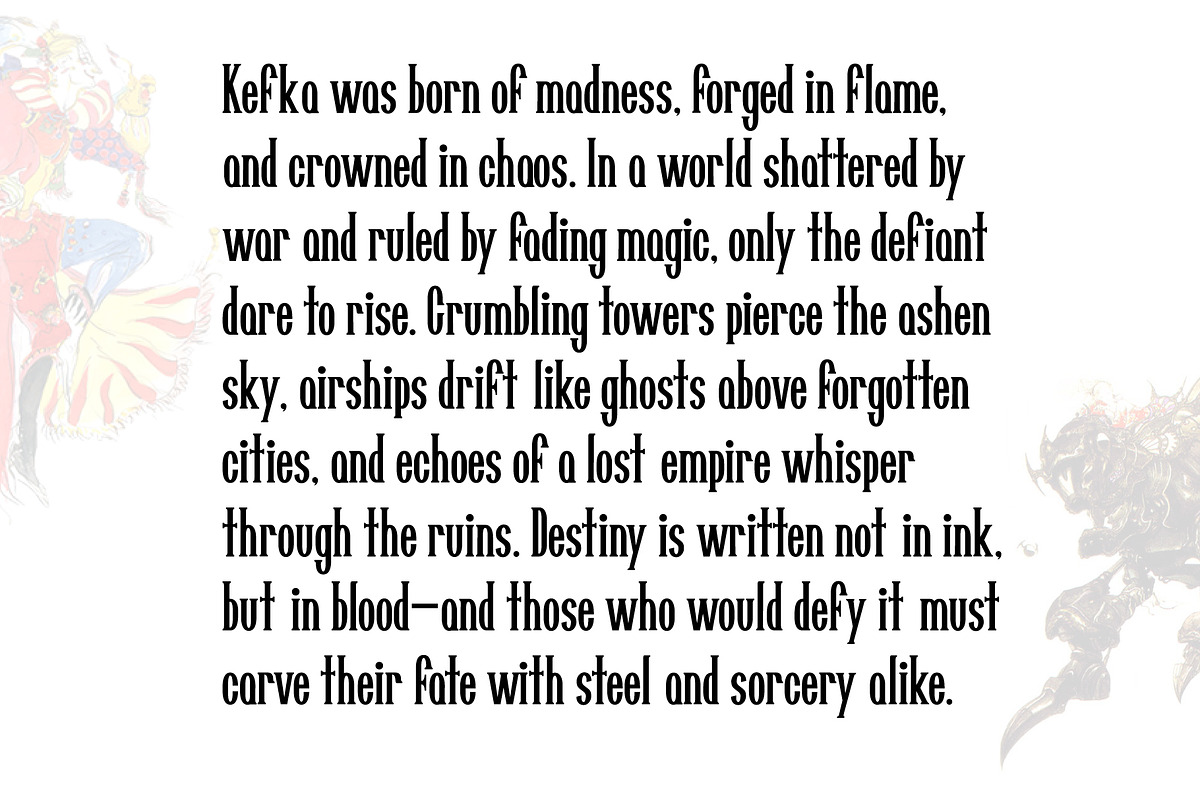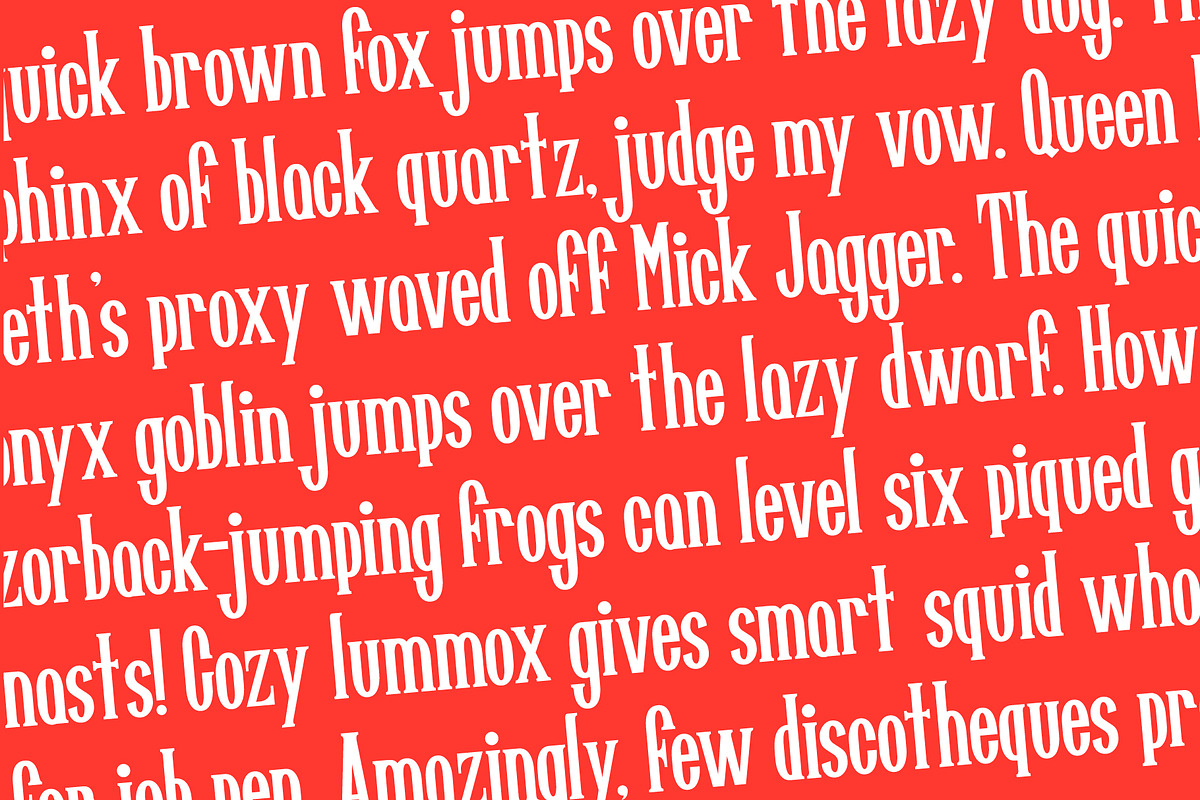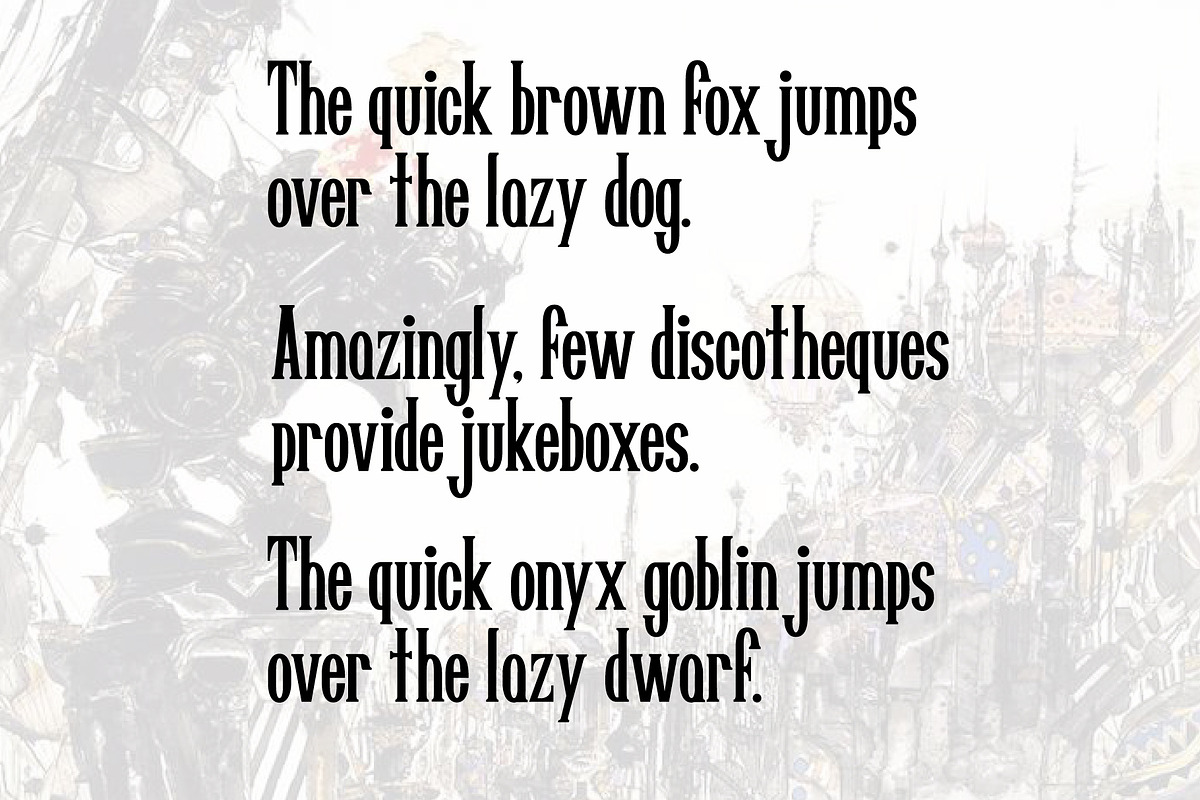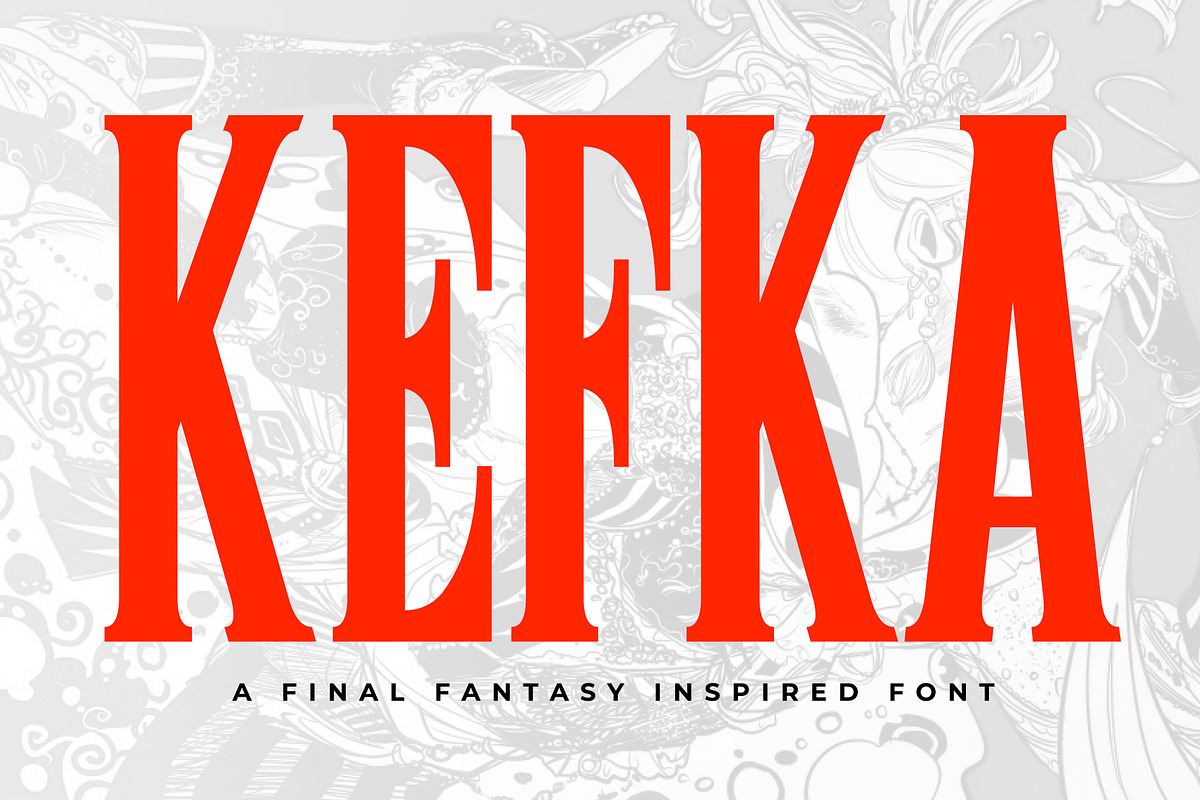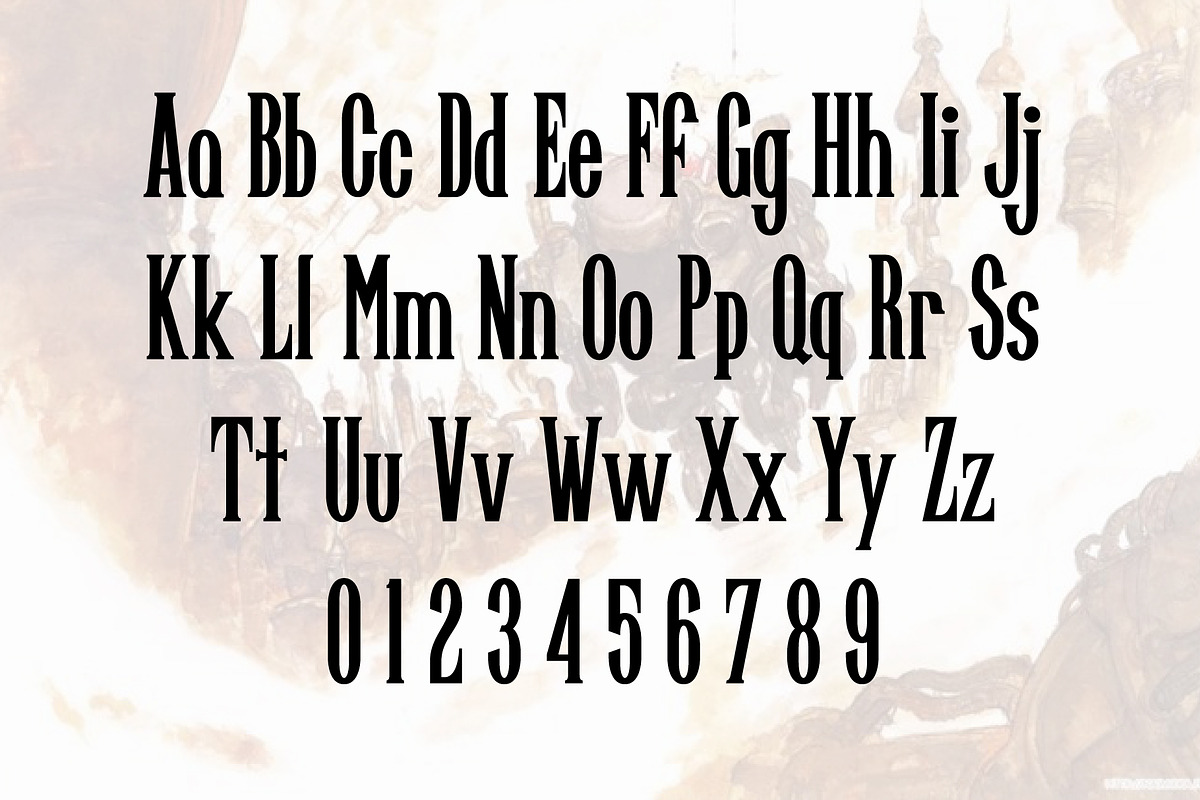
KEFKA
Kefka is a tall, dramatic display typeface inspired by the iconic lettering from the Final Fantasy series. With razor-sharp serifs, theatrical contrast, and a menacing elegance, it channels the operatic chaos of the SNES era’s most infamous villain.
Designed for fantasy posters, fantasy game tributes, dark branding, or anything that demands a little madness and grandeur, Kefka strikes a balance between nostalgic flair and modern usability.